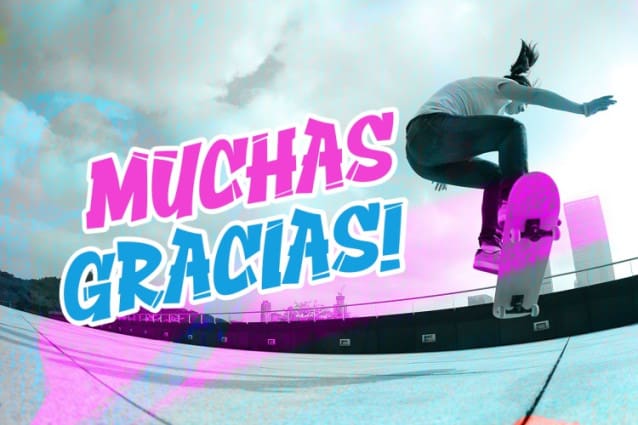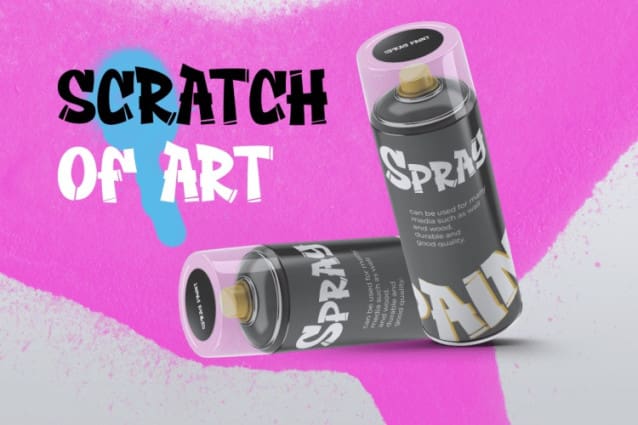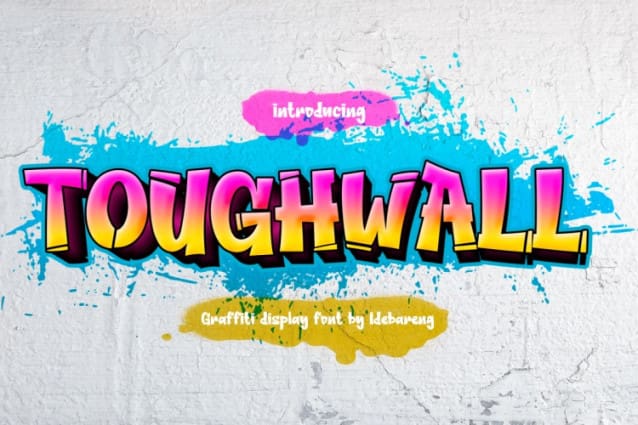
Toughwall Display Font
Toughwall Display Font is a bold, vibrant display font that embodies the raw, expressive spirit of street art. With thick strokes and three-dimensional effects, Toughwall brings a unique attitude to any design. Its sharp lines and colorful gradients make it look both playful and powerful. This font mimics graffiti sprayed onto a wall, complete with textured splashes of color in the background. As a result, Toughwall perfectly captures the urban vibe, making it ideal for projects that need an edgy, artistic touch.
Beyond its bold appearance, Toughwall Display also adds depth and dimension to text. The bold outlines and shadowed layers make words pop off the page or screen, creating an eye-catching focal point. This graffiti-inspired font is perfect for grabbing attention, whether used in digital media, print materials, or branding. More than just a font, it’s a statement piece that brings character and a sense of defiance to any design.
Toughwall Display Font is perfect for designers, artists, and brands looking to convey a bold, urban aesthetic. It works especially well for brands targeting young, energetic audiences, particularly in creative fields like fashion, music, and entertainment. Toughwall resonates with those who value street culture, self-expression, and originality. It’s also ideal for streetwear brands, skateboard companies, and graffiti-inspired projects that want to project an edgy, rebellious vibe.
Furthermore, social media creators can use Toughwall Display to make posts, stories, and ads more engaging with its street-style edge. It helps content stand out, creating memorable visuals that attract viewers. Event organizers, especially those planning music festivals, art shows, or underground events, can use Toughwall to capture their event’s raw, vibrant energy. For graphic designers working on merchandise, album covers, or posters, Toughwall adds a distinct edge to each project’s aesthetic. Ultimately, with Graffiti Font Toughwall, every design gains a strong, unforgettable impression, connecting viewers to the gritty, expressive world of street art and urban culture.